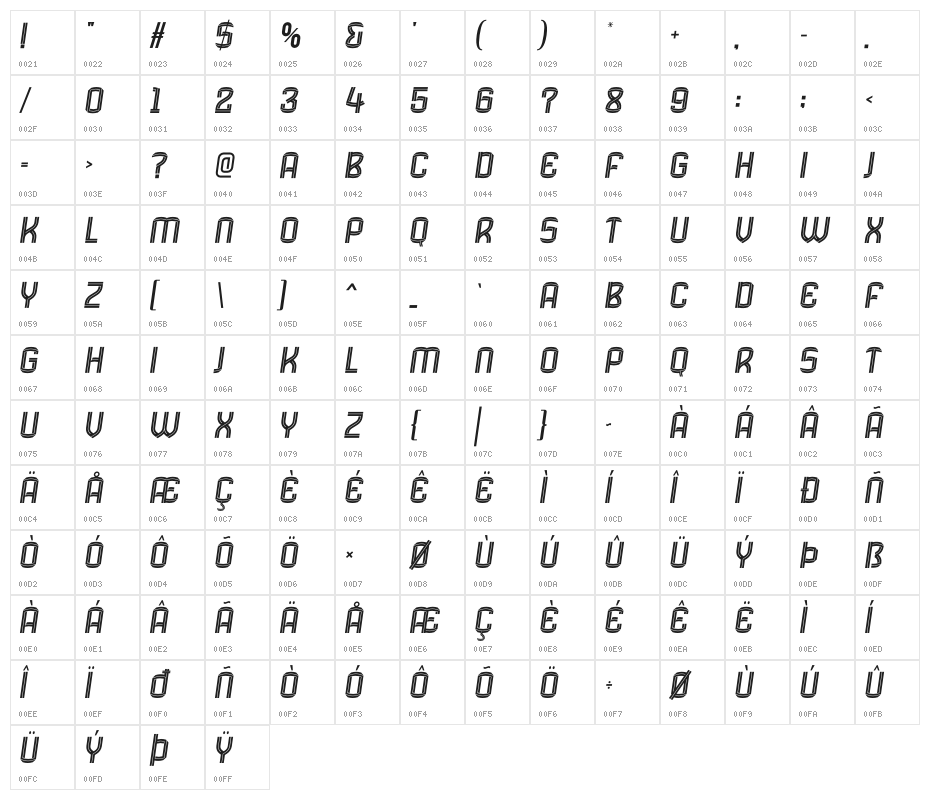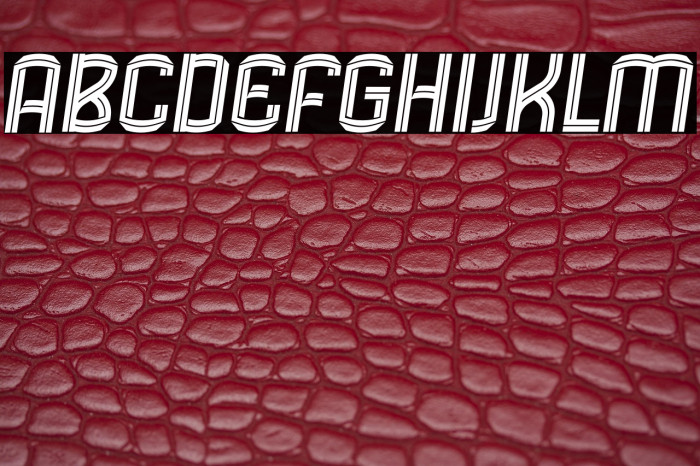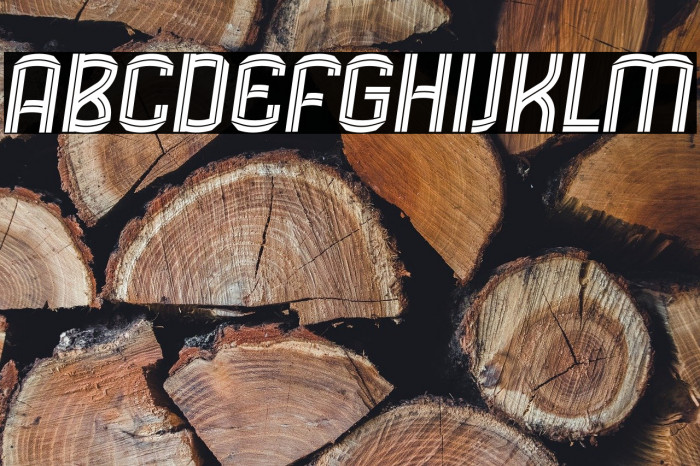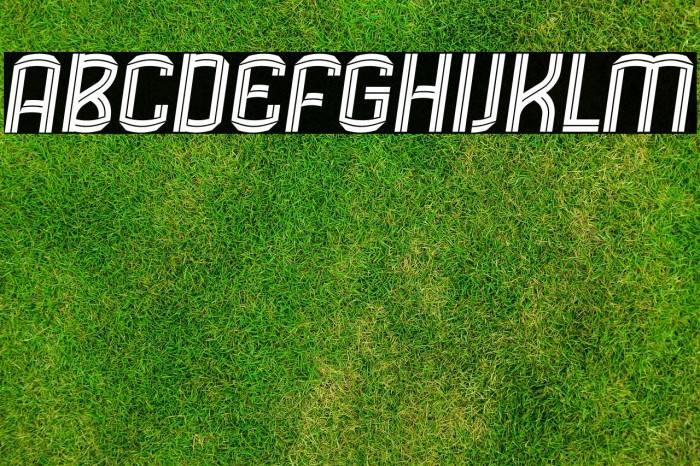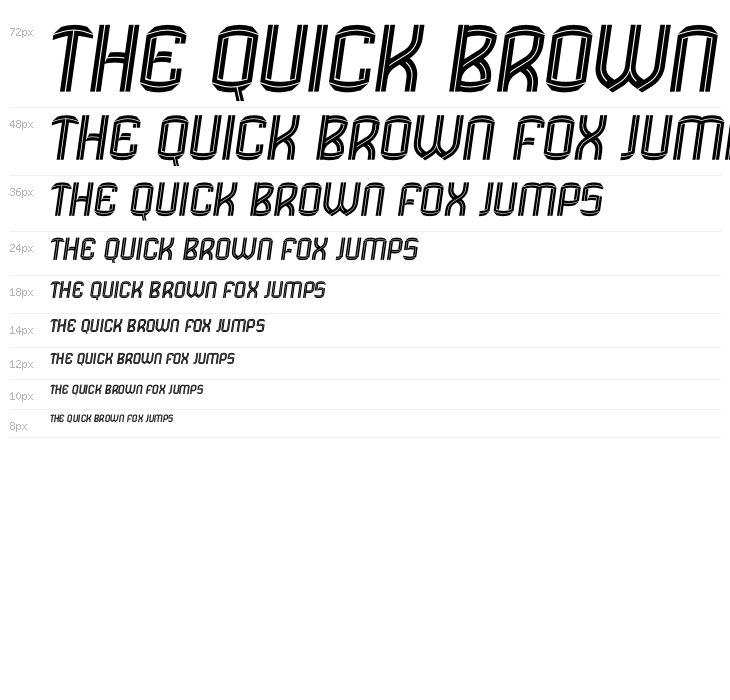
Fulham Italic Font
Fulham Italic Description
This font features a bold and dynamic design with a strong italic slant, giving it a sense of movement and energy. The characters are outlined with a double-line effect, creating a three-dimensional appearance that adds depth and interest. The strokes are consistent in width, contributing to a uniform and cohesive look. The uppercase and lowercase letters maintain a similar style, ensuring readability while adding a unique flair. The numerals and special characters follow the same design principles, making them easily recognizable and visually appealing.